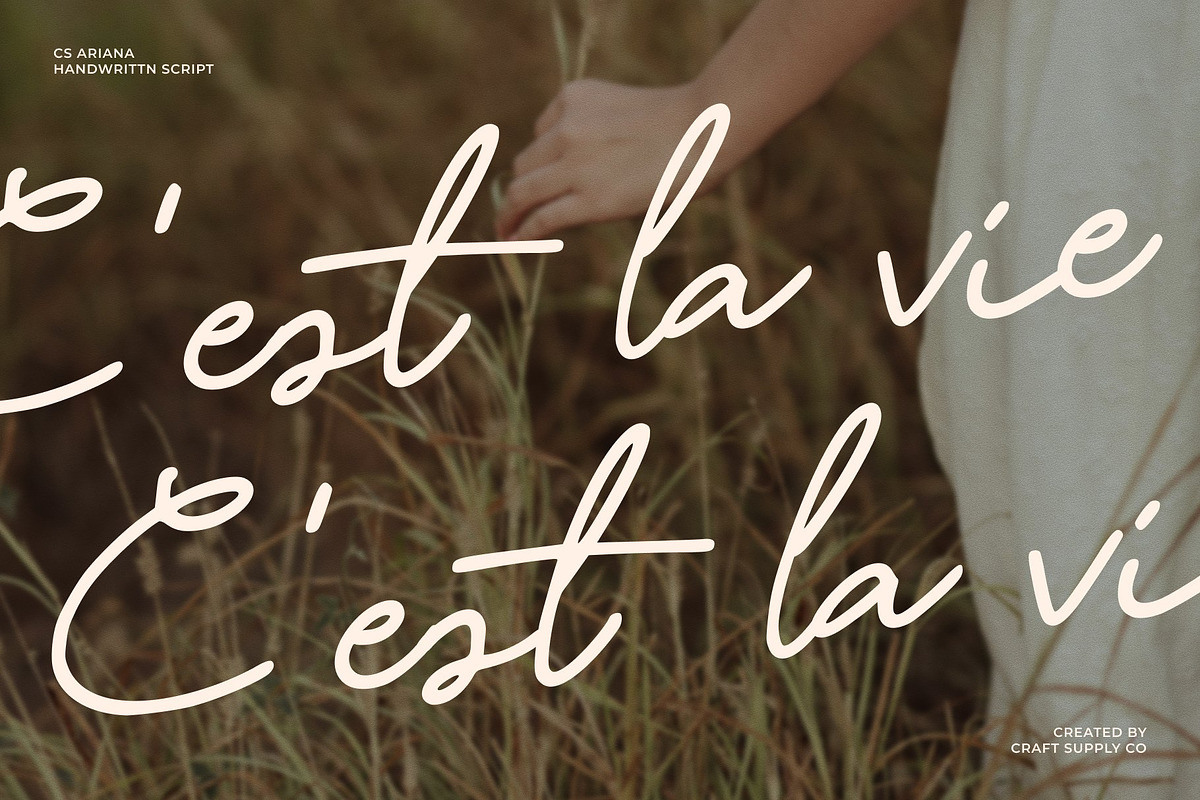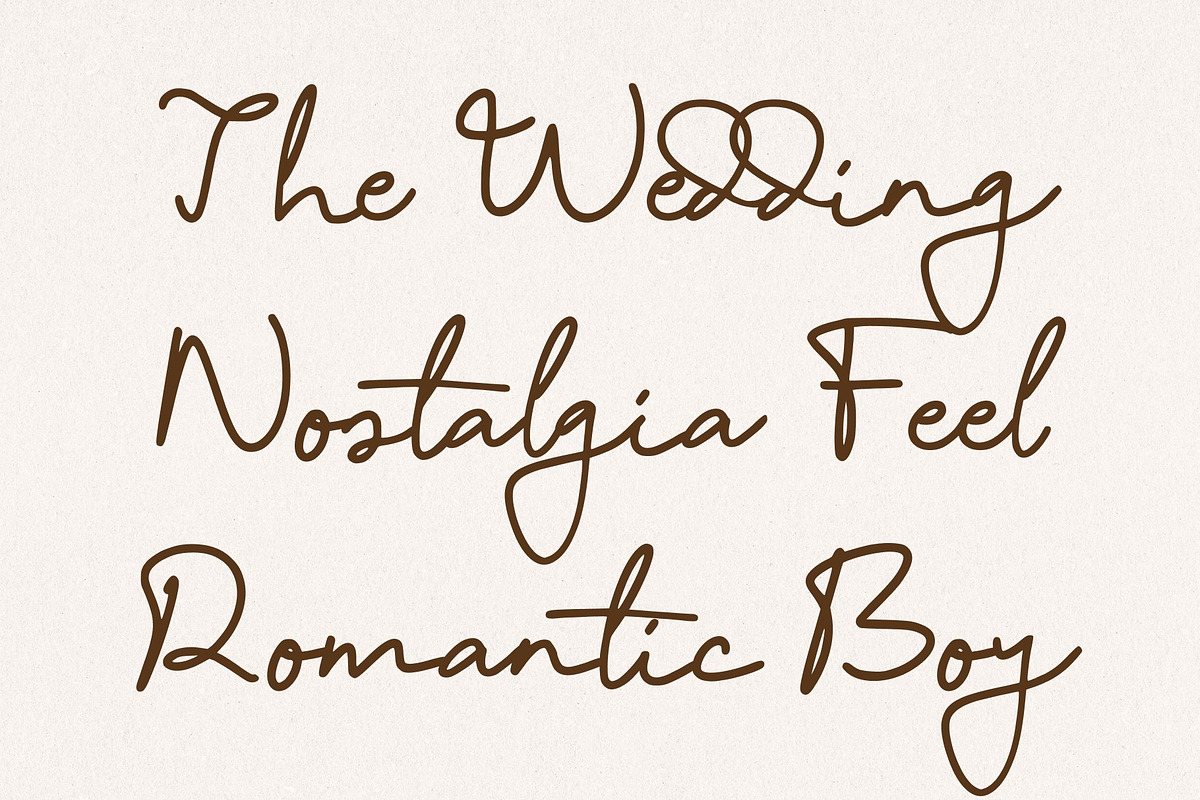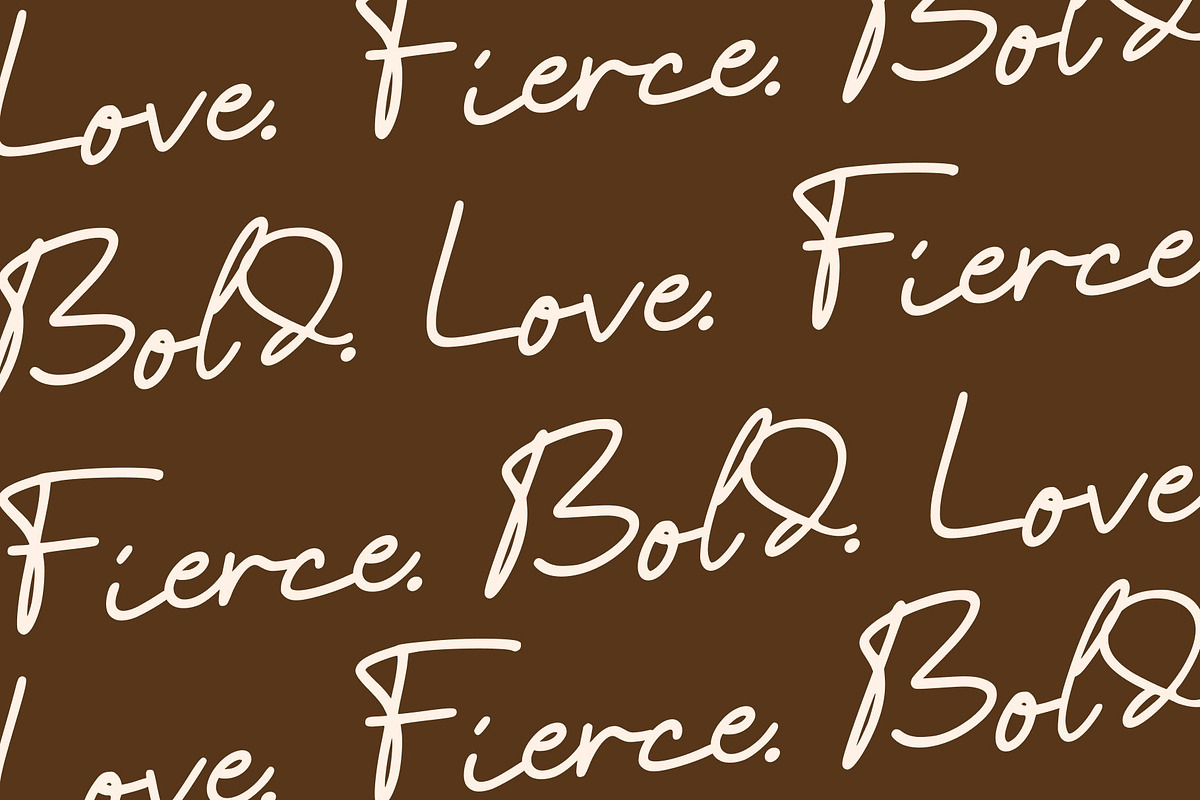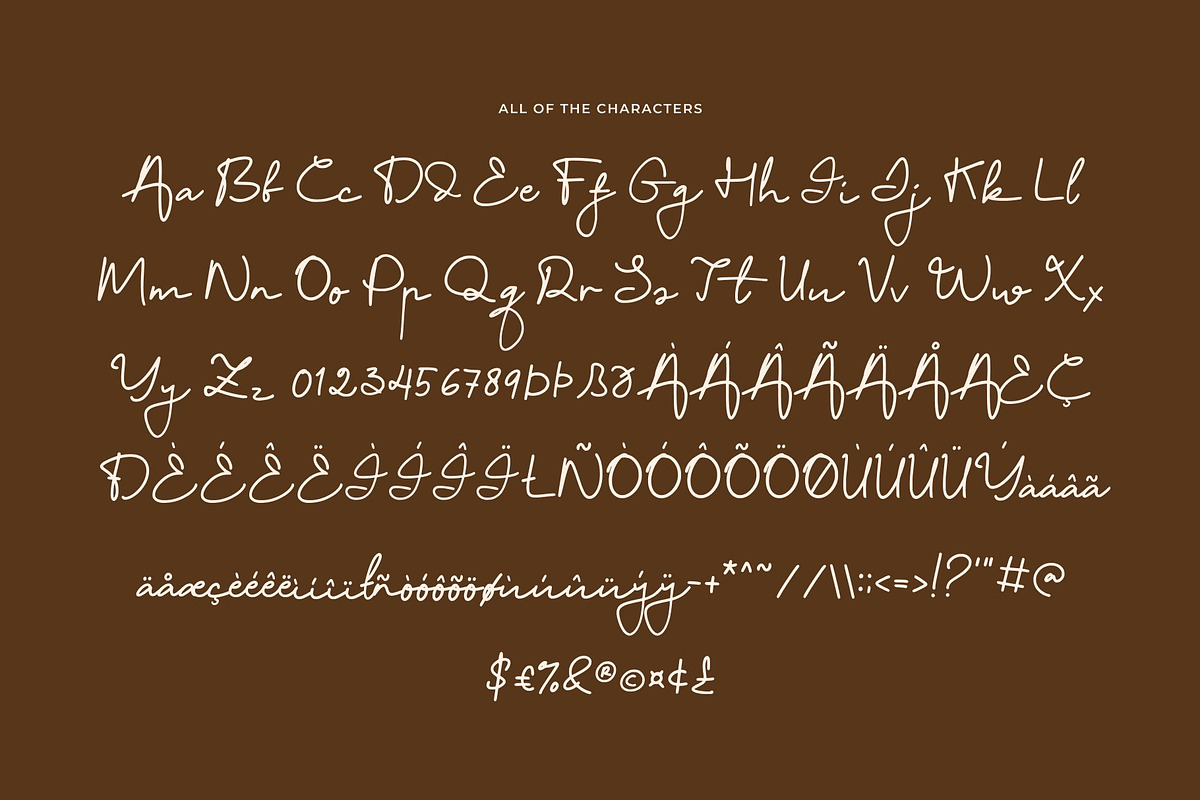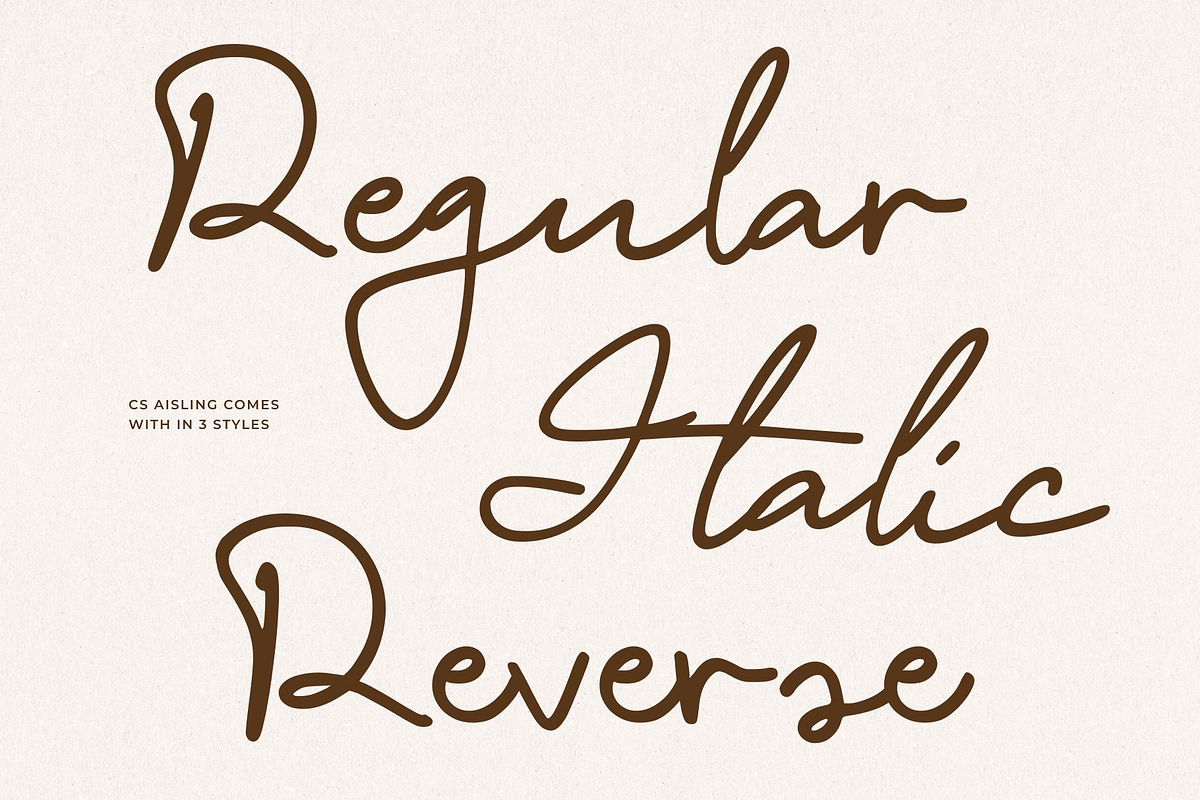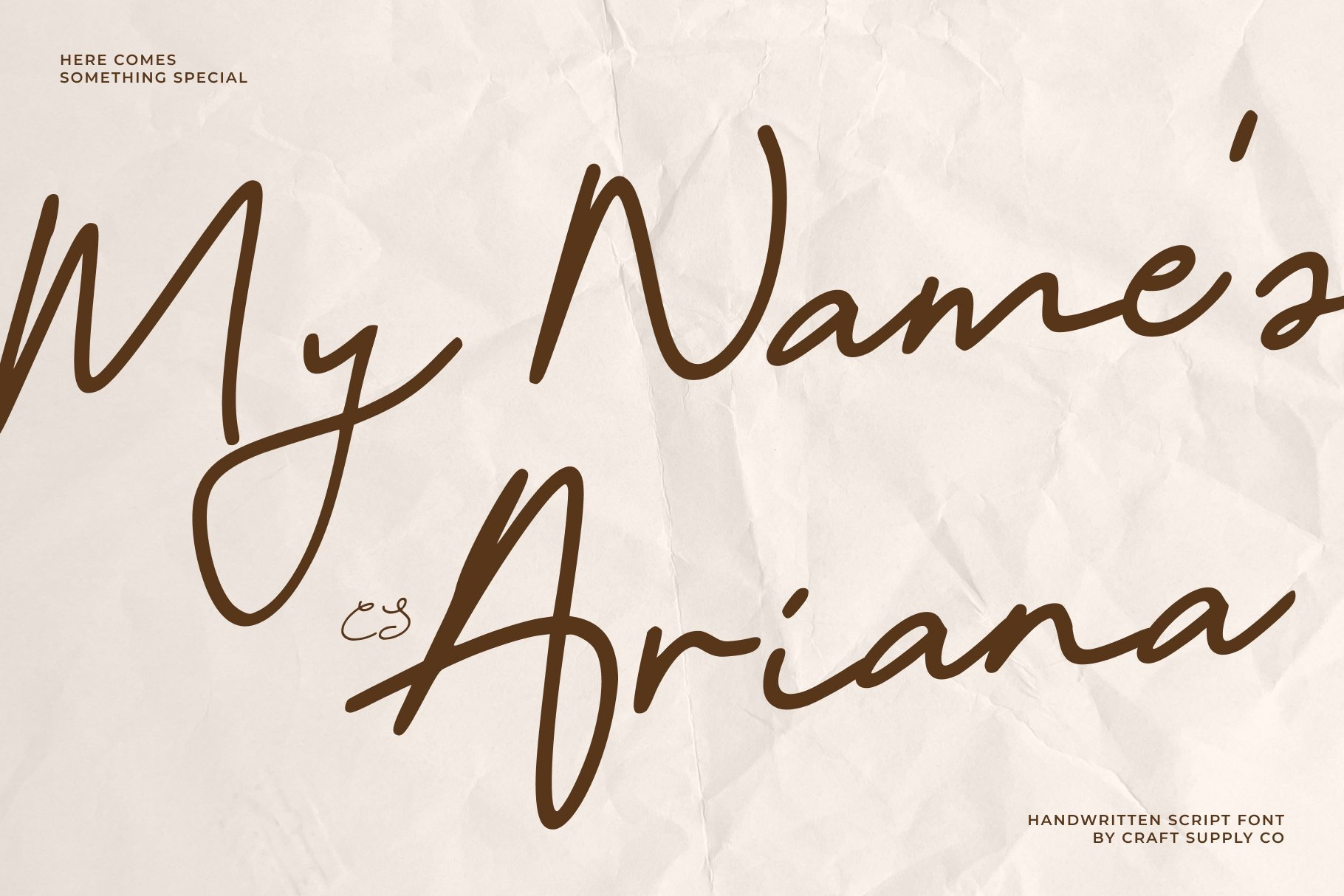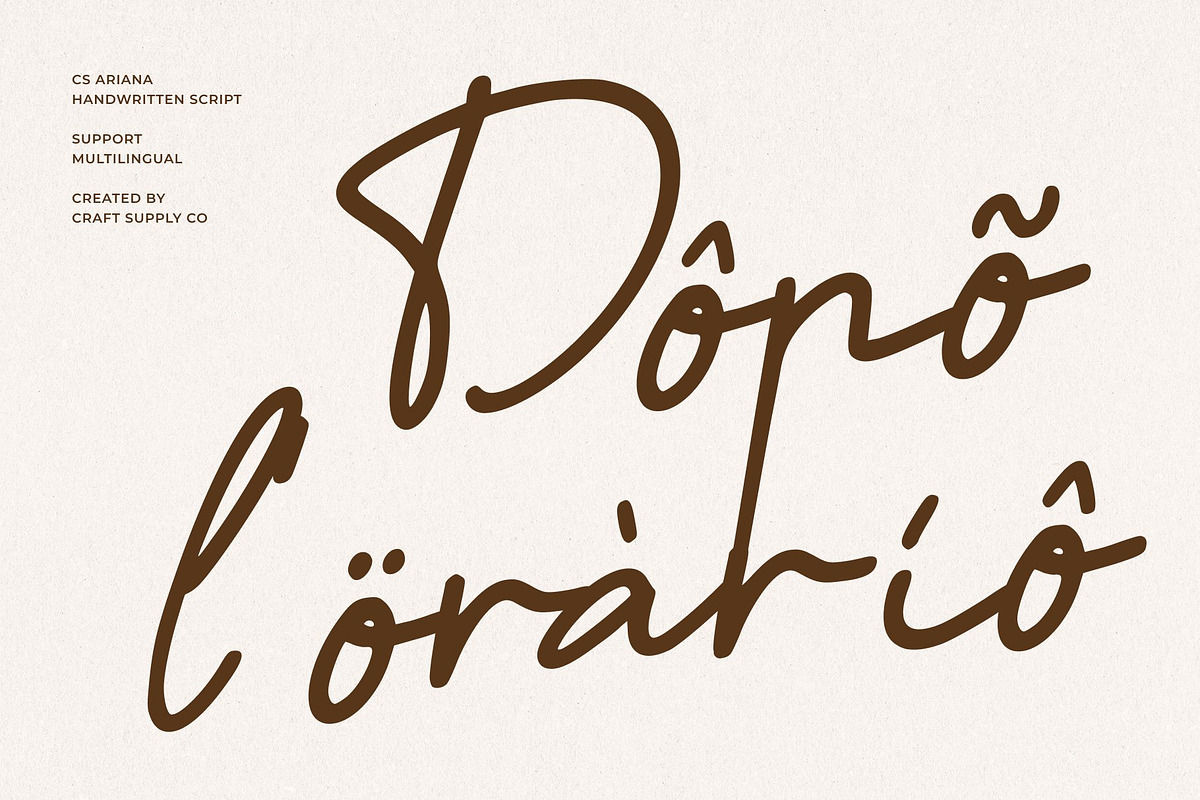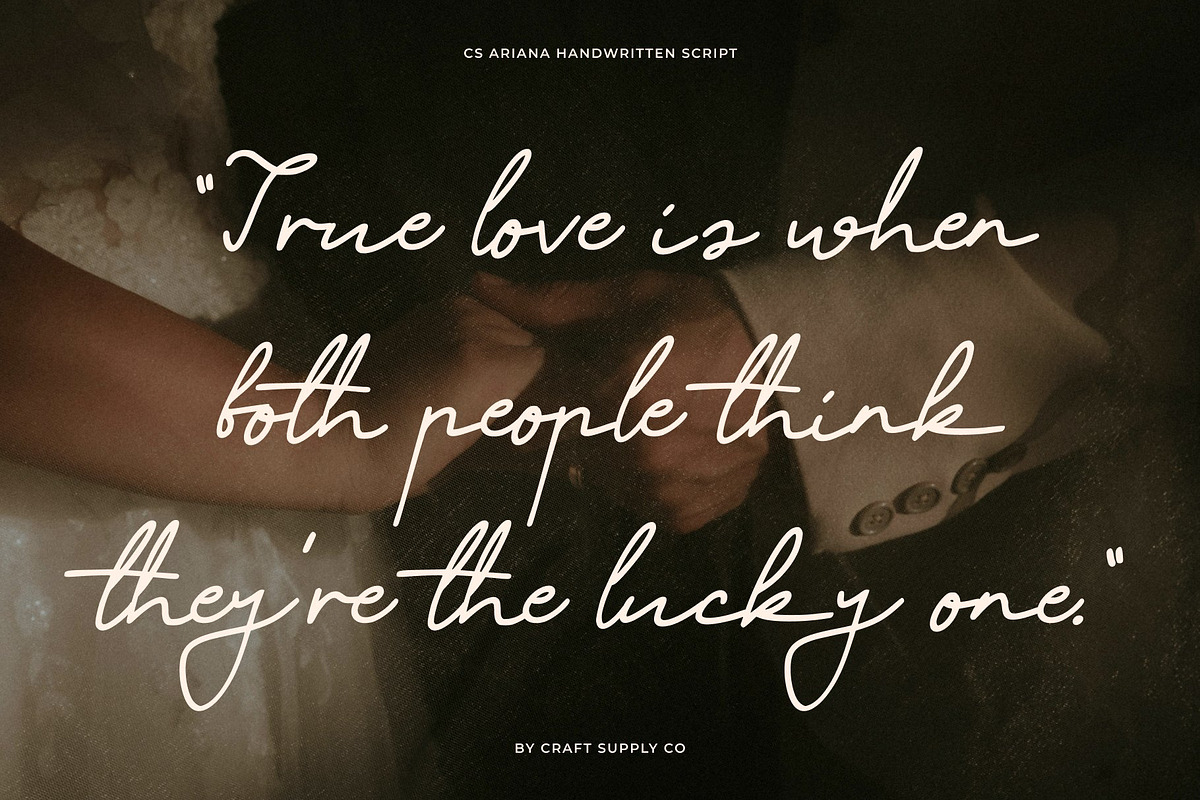
CS Ariana – Romantic Script Font
CS Ariana – Romantic Elegance with Delicate Beauty
Romantic Script Font with Graceful Flow This is a romantic script font designed to express beauty, softness, and timeless elegance. Flowing with gentle movement and graceful detail, this font captures the charm of classic handwritten romance while maintaining a refined and polished appearance. Its delicate curves and smooth connections create an inviting visual rhythm that feels emotional, elegant, and effortlessly beautiful.
Soft Curves with Refined Detail The defining character of this font lies in its soft curves and carefully crafted details. Each letter is shaped with sensitivity and balance, allowing the strokes to flow naturally while maintaining clarity. These graceful details add a sense of intimacy and warmth, making the font feel personal and expressive without appearing overly decorative or dramatic.
Delicate Expression for Romantic Storytelling This font delivers a delicate presence that enhances romantic and lifestyle-focused storytelling. Its script style evokes emotion, elegance, and sincerity, making it perfect for designs that aim to feel heartfelt and memorable. Whether used in large headlines or as a decorative accent, brings a poetic and graceful tone to any visual composition.
Perfect for Book Covers, Weddings, and Lifestyle Designs Designed for elegant and expressive applications, this font is ideal for book covers, wedding branding, invitations, lifestyle posters, and editorial visuals. Its romantic script form makes it especially suitable for love stories, personal celebrations, fashion features, and refined branding projects.